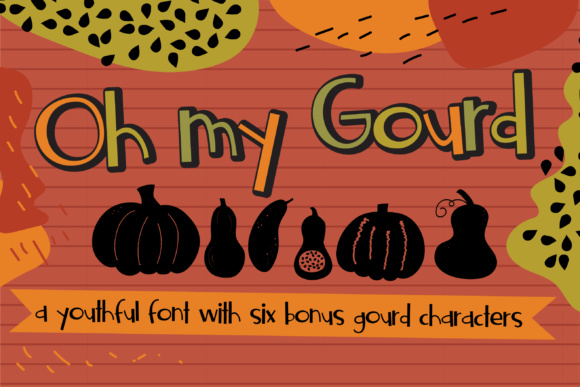
Embark on an enchanting typographic journey with Oh My Gourd Font, a whimsical sans serif typeface that adds a touch of playful charm to your digital creations.
Picture this: you're crafting an invitation for a garden party, and the words dance across the page with a cheerful exuberance, inviting your guests to a world of laughter and merriment. Or, you're designing a children's book, and the letters come alive, transforming into playful gourds that captivate young imaginations.
With Oh My Gourd Font, the possibilities are endless. Its friendly, unpretentious vibe makes it perfect for branding, social media graphics, and website design. It's a font that speaks to the young and the young at heart, inviting them to embrace life's simple pleasures and find joy in the everyday.
And the fun doesn't stop there! Oh My Gourd Font comes with a delightful bonus - SIX exclusive gourd characters that you can access through your system's character map. These charming little icons add an extra layer of whimsy to your designs, making them truly unique and unforgettable.
So, whether you're a seasoned designer or just starting out, let Oh My Gourd Font be your trusty companion. Its lighthearted spirit and boundless creativity will transform your projects into captivating visual masterpieces. Embrace the magic of Oh My Gourd Font and let your imagination run wild!